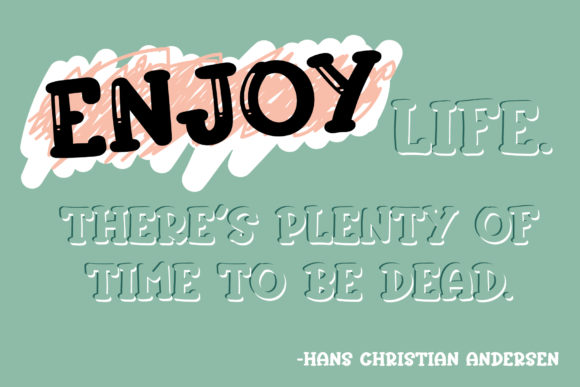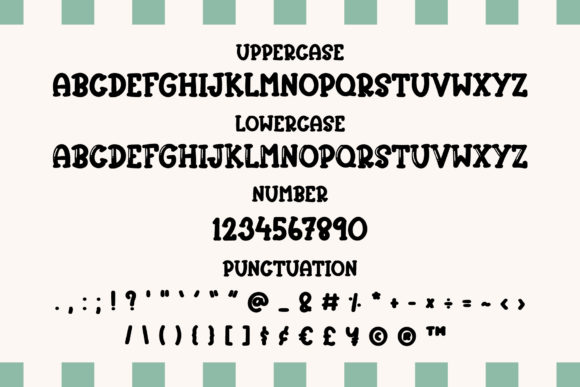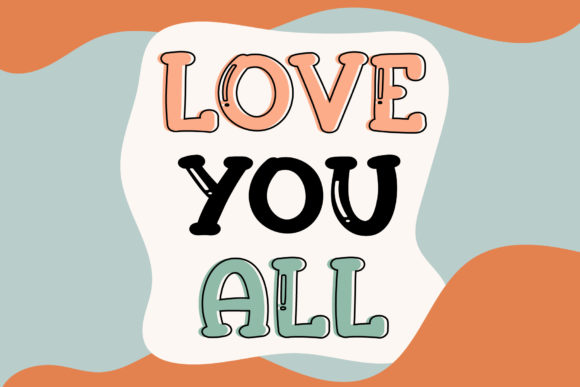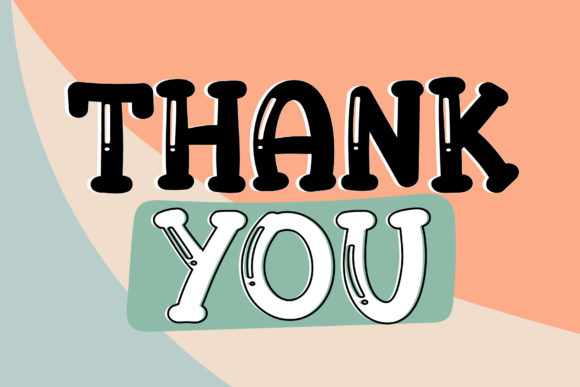
Introducing Ambition Font: Elevate Your Designs with a Cool and Friendly Display Font
In the world of design, fonts play a crucial role in conveying messages, evoking emotions, and setting the tone for a brand or project. With the vast array of fonts available, finding the perfect one that stands out from the crowd can be a daunting task. However, if you’re looking for a font that is both cool and friendly, yet simple with a strong visual effect, then look no further than Ambition Font.
What is Ambition Font?
Ambition Font is a display font designed to make your creations instantly more appealing. Its unique blend of simplicity and visual impact makes it an ideal choice for designers and crafters looking to elevate their designs. Whether you’re working on a branding project, creating social media graphics, or designing a website, Ambition Font is sure to make your work stand out.
Key Features of Ambition Font
• Cool and Friendly: Ambition Font boasts a cool and friendly aesthetic that can help you connect with your audience on a more personal level.
• Simple yet Impactful: Despite its simplicity, Ambition Font packs a strong visual punch, making it perfect for headlines, titles, and other display purposes.
• Versatile: This font is highly versatile and can be used across various design projects, from digital media to print materials.
• Easily Readable: Ambition Font is designed to be easy to read, ensuring that your message is communicated clearly and effectively.
Who Can Benefit from Ambition Font?
Ambition Font is an excellent choice for a wide range of designers and crafters, including:
• Graphic Designers: Looking for a font that can add a modern touch to their designs.
• Branding Experts: Seeking a font that can help establish a strong brand identity.
• Social Media Managers: Needing a font that can make their social media graphics stand out.
• Web Designers: Looking for a font that can enhance the visual appeal of their websites.
• Crafters and Makers: Wanting to add a professional touch to their craft projects.
How to Use Ambition Font Effectively
To get the most out of Ambition Font, consider the following tips:
• Pair with Complementary Fonts: Use Ambition Font in combination with other fonts to create visual interest and hierarchy.
• Experiment with Sizes and Colors: Play around with different sizes and colors to maximize the font’s impact.
• Use for Headlines and Titles: Ambition Font is perfect for headlines and titles, but feel free to experiment with body text for a unique look.
Font Name Ambition Font
Author Wanida Toffy
Ambition Font is a powerful tool for designers and crafters looking to elevate their designs with a cool and friendly display font. Its simplicity, combined with its strong visual effect, makes it an excellent choice for a wide range of projects. By incorporating Ambition Font into your design toolkit, you’ll be able to create more appealing and engaging designs that stand out from the crowd.